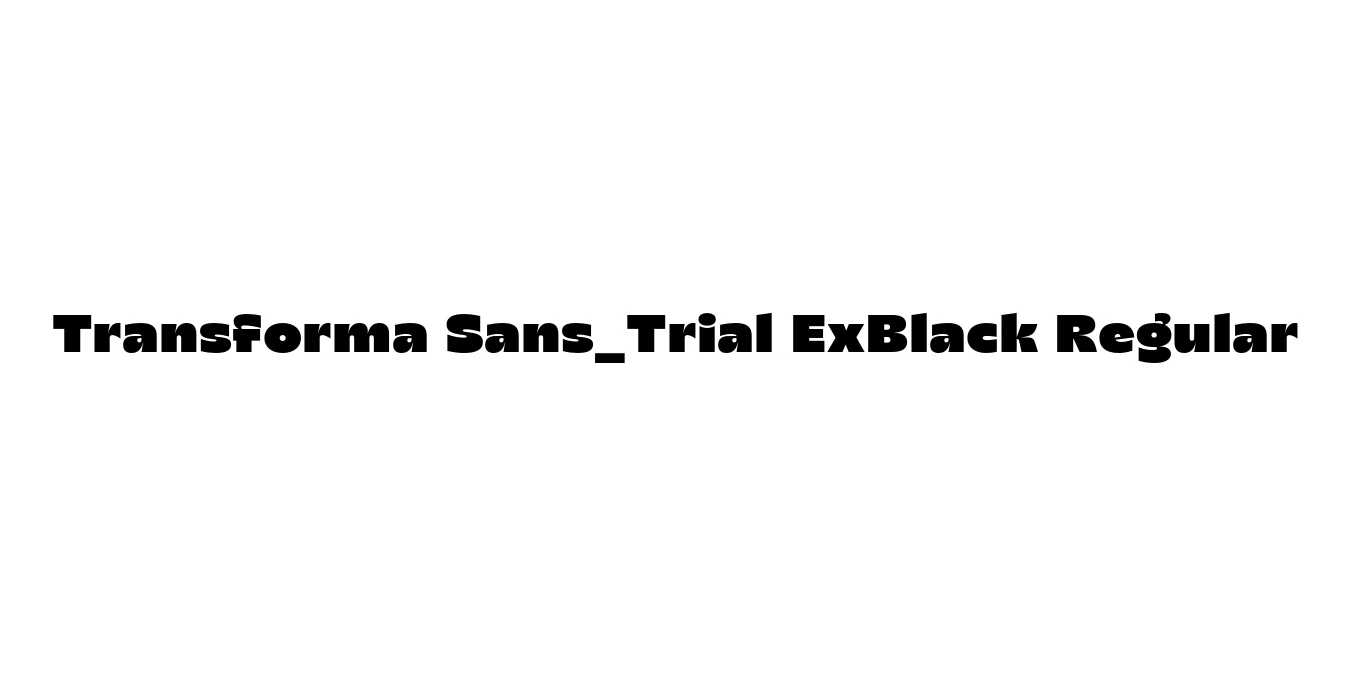
Transforma Sans_Trial ExBlack Regular
Designed by Zoran Kostić
Transforma Sans_Trial ExBlack Regular is a powerhouse typeface belonging to the extensive Transforma font system designed by Zoran Kostić. This specific variant occupies the extreme end of the weight spectrum, featuring ultra-thick strokes and a massive presence that is designed for maximum visual impact. The architecture of the letters combines industrial geometric precision with modern digital clarity, ensuring that even at its most extreme density, the font remains legible and structurally sound.
As a Trial version, this font serves as an introductory tool for designers to test the capabilities of the broader Transforma family. The ExBlack weight is particularly effective for high-contrast environments where the typography needs to act as a primary graphic element. Whether used for cinematic titling or contemporary brand identities, it provides an authoritative voice that commands attention through its sheer weight and sophisticated sans-serif proportions.
Transforma Sans_Trial ExBlack Regular Best Uses
Perfect for massive, attention-grabbing titles in editorial design and magazines.
Ideal for logo designs that require a sense of strength, stability, and authority.
Excellent for high-visibility promotional materials and street-style posters.
Great for bold call-to-action elements and impactful hero headers in web design.